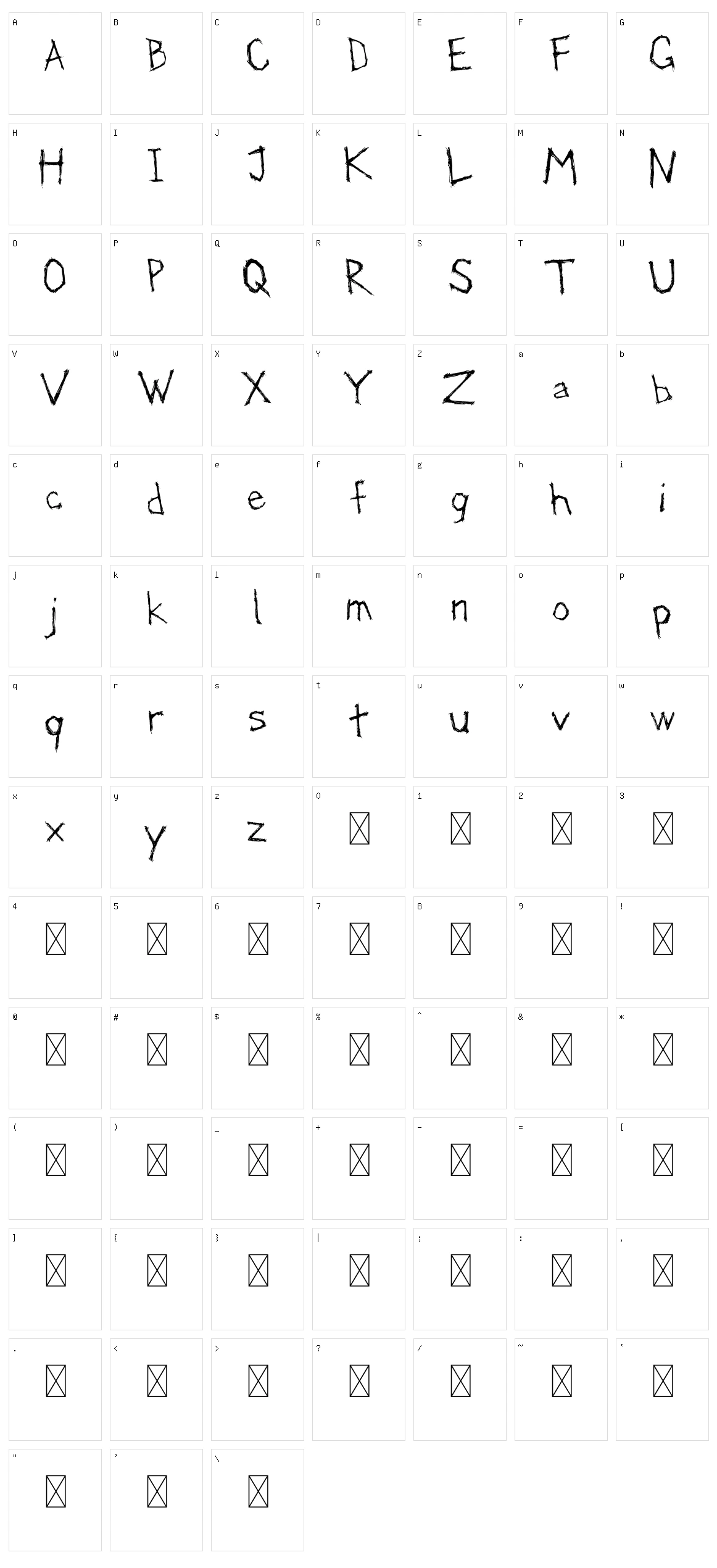
The free font Slasher Mimco is carefully designed by Milan Cimera, showcasing a thoughtful balance of creativity and usability and falls under the Trash font style. When you download the ZIP file, it contains only 782 KB of font files, making it lightweight and quick to download. Please review the license details below to understand permitted usage and distribution rights. If license information is not available, we recommend using this font for personal projects only or contacting the author directly for commercial usage permissions.